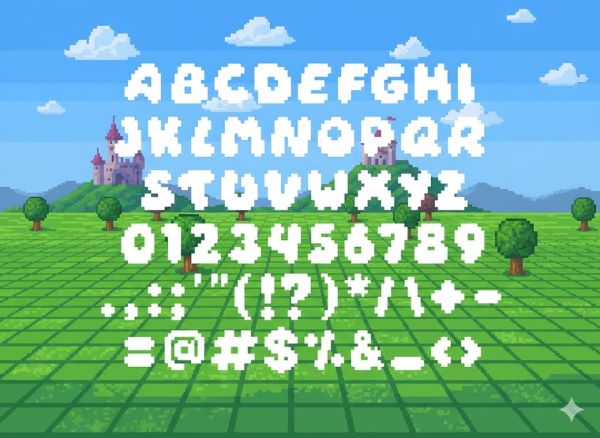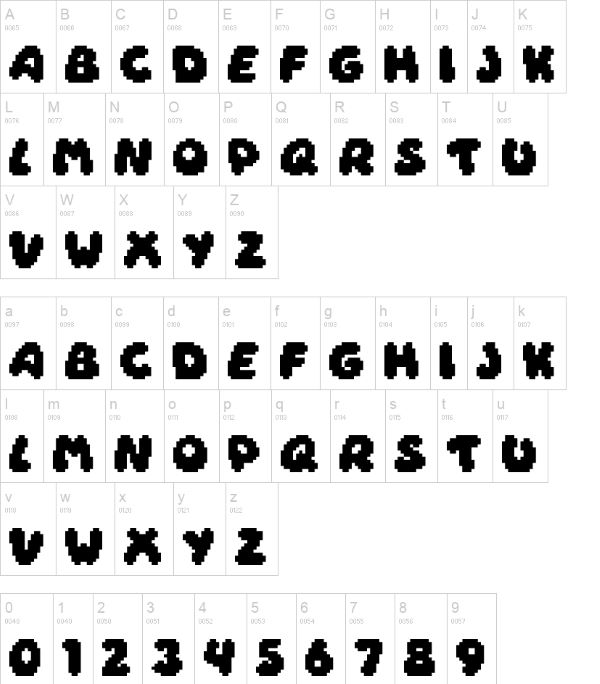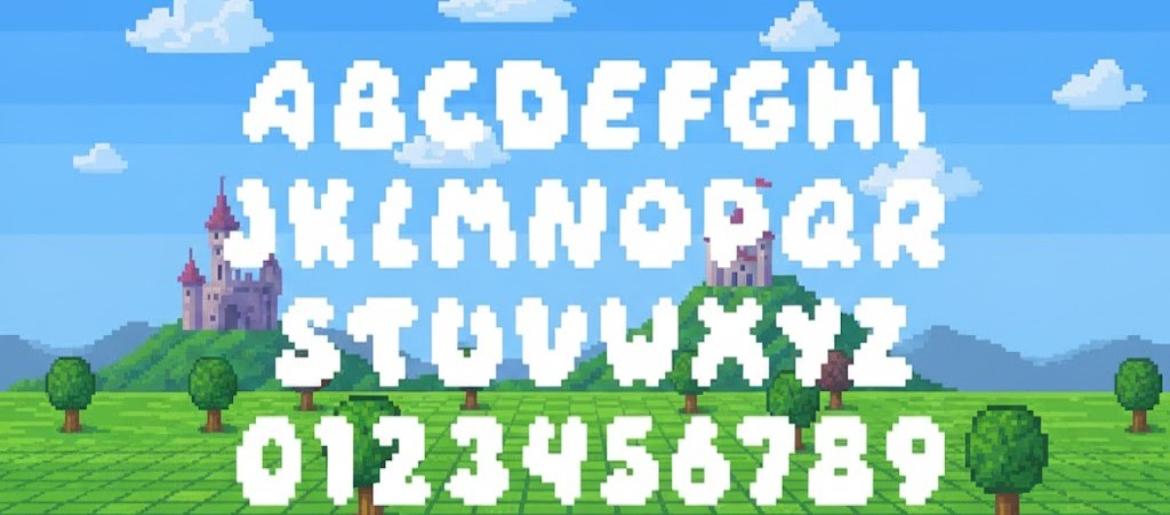
Daydream Font
Daydream Font is a soft bitmap, whimsical display typeface with a dreamy and playful personality. Its rounded, flowing letterforms create a light, magical feel, making it perfect for children’s designs, quotes, posters, journals, and creative branding. Daydream adds warmth, imagination, and a gentle charm to any visual project.